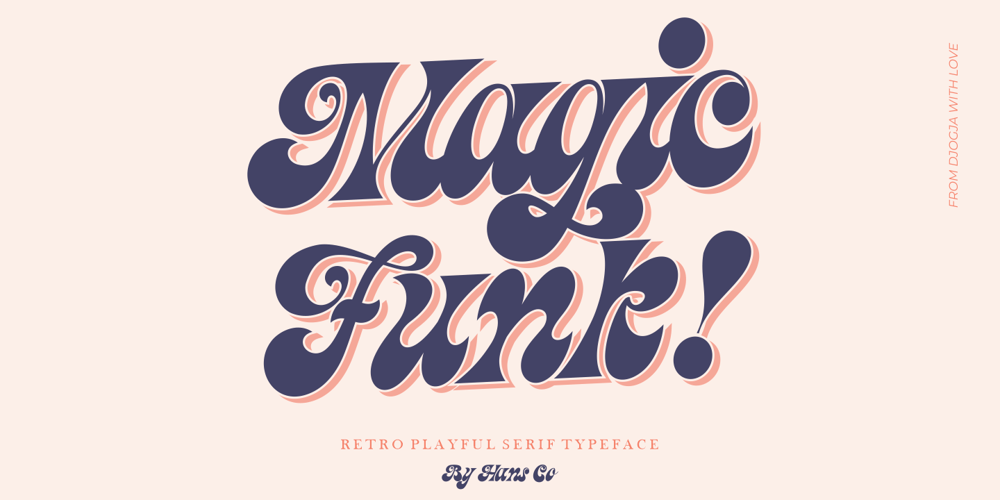
Magic Funk Font Family was designed by Burhan Afif and published by HansCo. Magic Funk contains 1 styles and family package options. INTRODUCING – Magic Funk a retro serif typeface.Magic Funk is a unique display serif typeface with many ligatures and alternates that you can combine to get Amazing & Beautiful project. Very suitable for use with retro, old and vintage themed.comes with a full uppercase, lowercase, numbers and punctuation + standard multilingual support. This font is perfect for fashion related branding or editorial design and displays both masculine and feminine qualities. We recommend using Adobe Illustrator or Photoshop.Tutorial how to Install & use Alternate / Special Character : https://hanscostudio.com/tutorial/Enjoy!